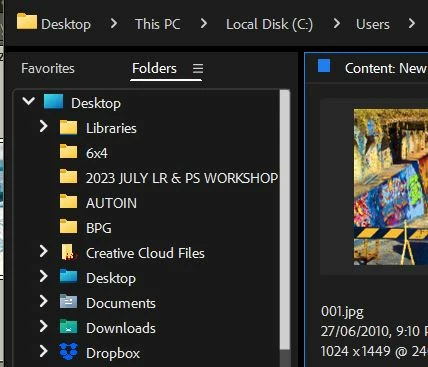
Sytem Font in Bridge 2023
Really wish we could just have the system font for the interface in Bridge 2023 (as in all previous versions). The Adobe font is uglier, harder to read, and, who knows, may even have a miniscule effect on perfomance. Why not an option to opt out of Adobe's corporate typeface for our file names, folders, filters, and keywords?
(Regarding readability, I have tried increasing type size, but the very limited options are either 'Too Big' or 'Too Small'.)
What font are you seeing in Bridge?
Mine is readable and scalable in Bridge Preferences-
That's what I see — it's a sans-serif that's just a little bit uglier and a little bit harder to read in small sizes than the Mac OS system font. This is an unnecessary change, and an option to use the system font would be a nice addition.
As I said about the scaling in my original post, the 'small' size is less readable than before, and every larger size is too big. This is a small issue, but it's needlessly worse than it used to be.
It's not a good font, would change if I had the option!
Agreed! The font is absolutely horrendous and makes me not use Bridge.